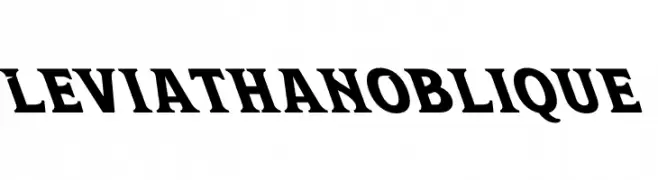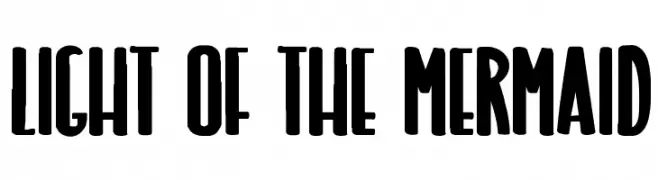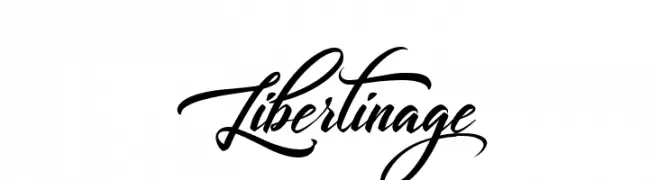
A hand-drawn, rustic font with whimsical, uneven lines and organic character shapes.
A playful and expressive handwritten font with fluid, dynamic strokes.
A dynamic and elegant script font with fluid, flowing letterforms and dramatic flourishes.
A classic serif font with elegant, well-defined characters and moderate contrast.
A playful, casual handwritten font with irregular, organic letterforms.
A bold, handwritten font with a playful and casual style.
A casual, handwritten font with a smooth, flowing style and moderate stroke thickness.
A graceful script font with fluid, connected strokes and a refined, elegant appearance.